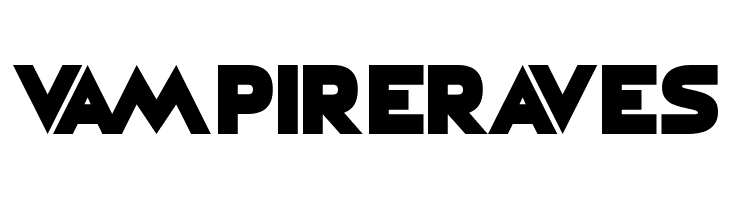
A bold, distressed font with a rugged, vintage look.
A classic serif font with elegant, well-defined characters and sharp serifs.
A bold serif font with intricate inline detailing, offering a classic and elegant appearance.
A classic serif font with a shaded, three-dimensional effect.
An ornate and intricate Old English style font with bold, angular letterforms.
A playful handwritten font with a whimsical and creative style.
A bold, italic font with sharp angles and a dynamic style.
A bold, geometric font with sharp angles and a modern aesthetic.
A bold, brush-style font with sharp, jagged edges and a dynamic appearance.